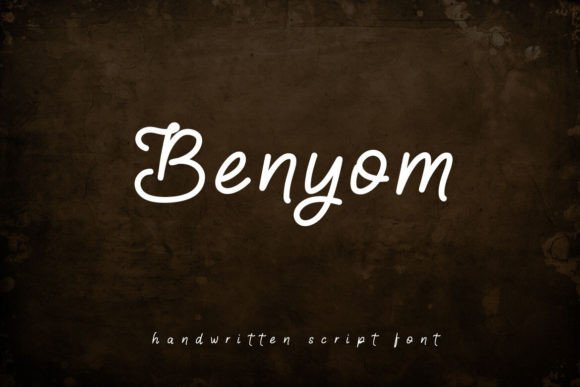
Benyom Font: A Simple yet Elegant Handwritten Script Font
In the world of typography, fonts play a crucial role in conveying the tone and personality of a brand or design. Among the numerous fonts available, Benyom font stands out as a simple yet elegant handwritten script font that can elevate your designs to the next level. In this article, we’ll explore the features, uses, and benefits of Benyom font, and how it can be used in various design projects.
What is Benyom Font?
Benyom is a simple handwritten script font that exudes elegance and sophistication. Its clean and smooth lines make it perfect for a wide range of design applications, from flyers and book titles to advertisements and social media content. The font’s simplicity and readability make it an excellent choice for designers who want to add a personal touch to their work without overwhelming the audience.
Key Features of Benyom Font
- Handwritten Script Font: Benyom font is a handwritten script font that mimics the natural flow of handwriting, giving it a personal and organic feel.
- Simple and Elegant: The font’s simplicity and elegance make it versatile and suitable for various design projects.
- Clean and Smooth Lines: Benyom font features clean and smooth lines that ensure excellent readability, even at small font sizes.
- Wide Range of Applications: The font can be used in various design projects, including flyers, book titles, advertisements, social media content, logos, and more.
Uses of Benyom Font
Benyom font is a versatile font that can be used in a wide range of design projects, including:
- Flyers and Brochures: Add a personal touch to your flyers and brochures with Benyom font, making them stand out from the crowd.
- Book Titles: Use Benyom font to create elegant and eye-catching book titles that reflect the book’s content and tone.
- Advertisements: Benyom font can be used in advertisements to add a touch of sophistication and elegance, making your brand more appealing to the audience.
- Social Media Content: Use Benyom font to create engaging and visually appealing social media content that resonates with your audience.
- Logos: Benyom font can be used to create simple yet elegant logos that reflect your brand’s personality and values.
Benefits of Using Benyom Font
Using Benyom font in your design projects offers several benefits, including:
- Improved Readability: Benyom font’s clean and smooth lines ensure excellent readability, even at small font sizes.
- Elegance and Sophistication: The font’s simplicity and elegance add a touch of sophistication to your designs, making them more appealing to the audience.
- Versatility: Benyom font can be used in a wide range of design projects, making it a valuable addition to your font collection.
- Time-Saving: The font’s simplicity and elegance save you time and effort in designing, as it eliminates the need for complex and intricate designs.
How to Use Benyom Font
Using Benyom font in your design projects is straightforward and easy. Here are some tips to get you started:
- Choose the Right Font Size: Select a font size that suits your design project, ensuring excellent readability and visual appeal.
- Pair with Other Fonts: Benyom font can be paired with other fonts to create a unique and visually appealing design.
- Experiment with Colors: Try different colors and color combinations to add depth and personality to your designs.
- Use in Combination with Images: Use Benyom font in combination with images to create a visually appealing and engaging design.
In conclusion, Benyom font is a simple yet elegant handwritten script font that can elevate your designs to the next level. Its clean and smooth lines, simplicity, and elegance make it perfect for a wide range of design applications. With its versatility, readability, and sophistication, Benyom font is an excellent addition to your font collection.
- What is Benyom font?: Benyom font is a simple handwritten script font that exudes elegance and sophistication.
- What are the uses of Benyom font?: Benyom font can be used in various design projects, including flyers, book titles, advertisements, social media content, logos, and more.
- What are the benefits of using Benyom font?: The benefits of using Benyom font include improved readability, elegance and sophistication, versatility, and time-saving.